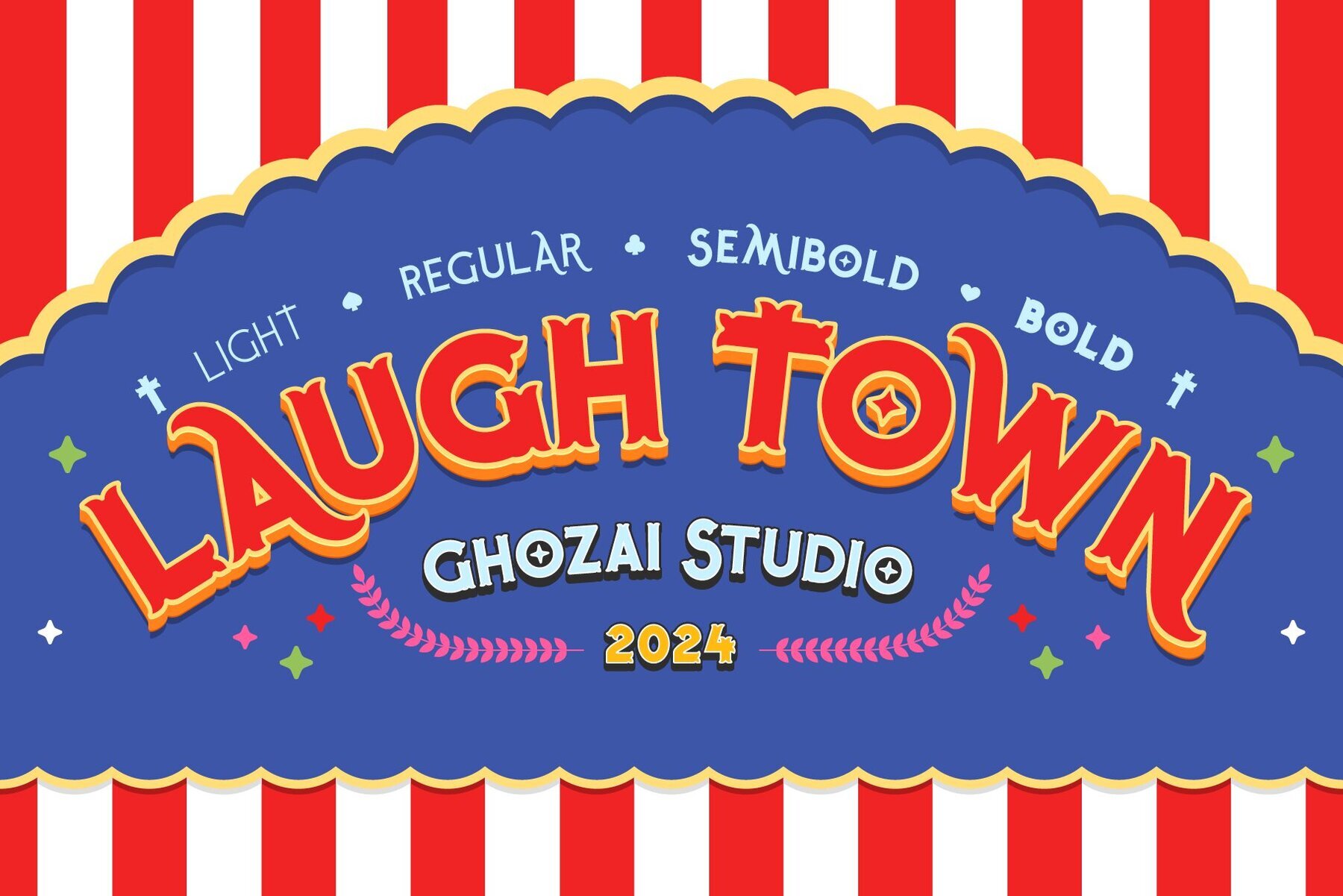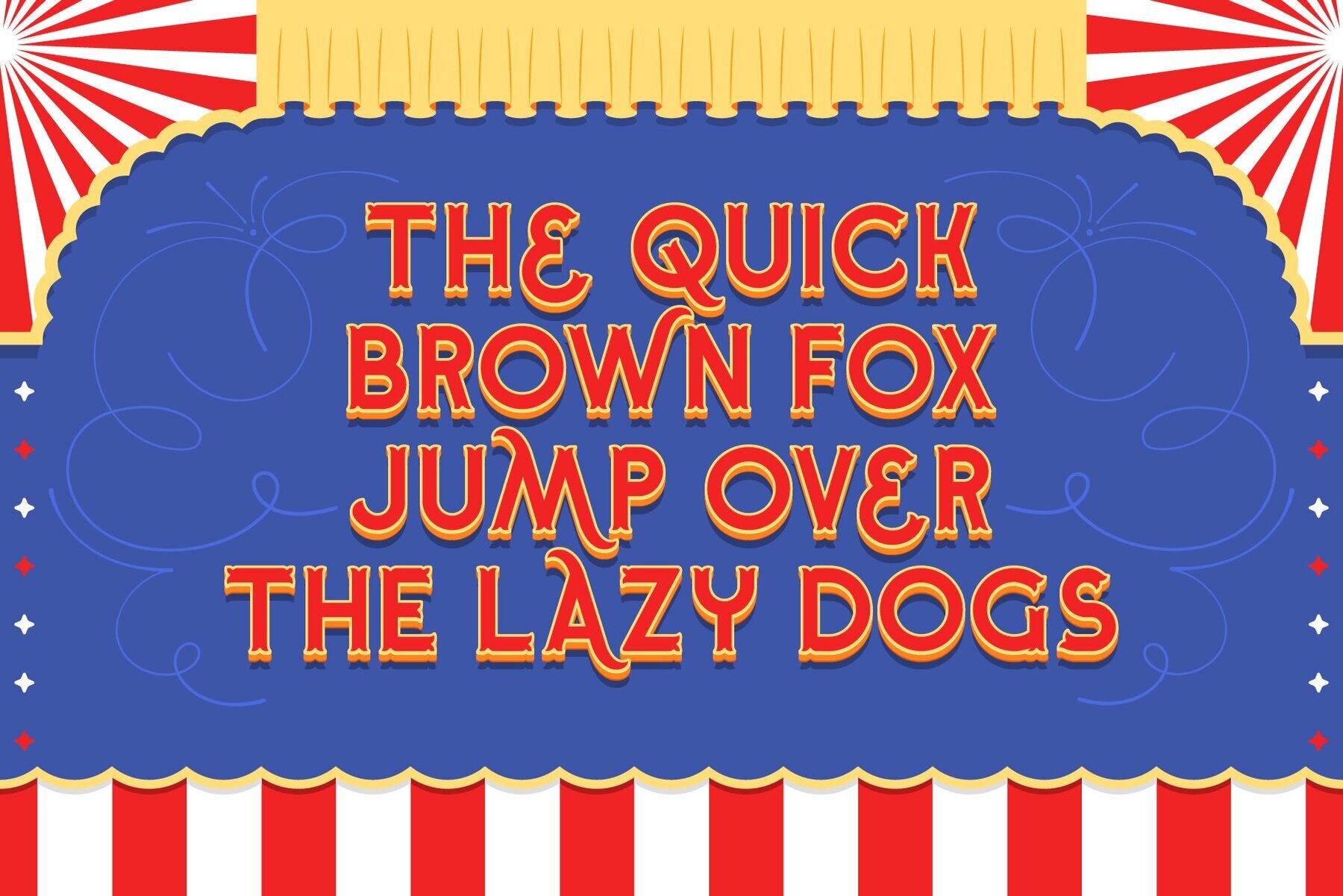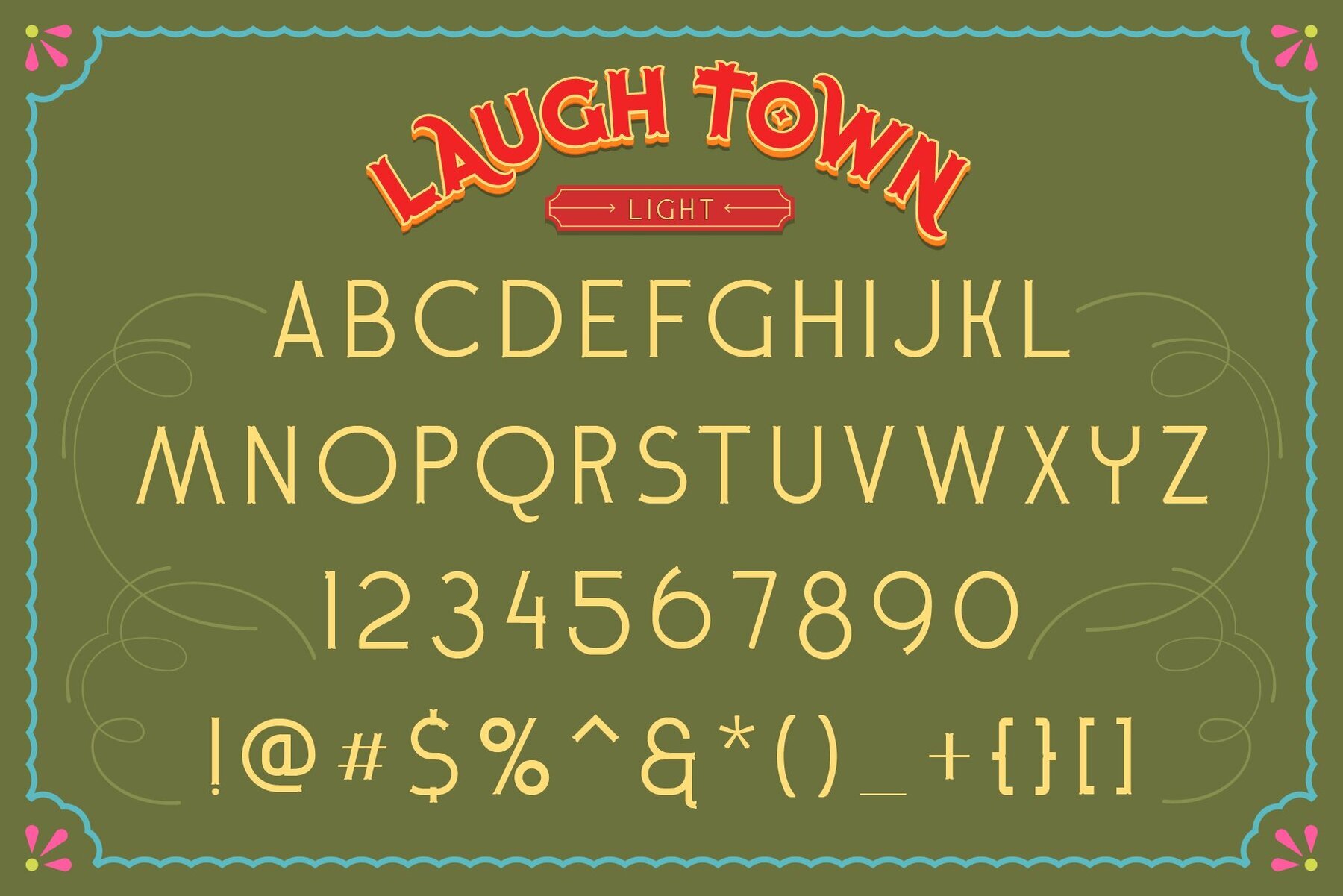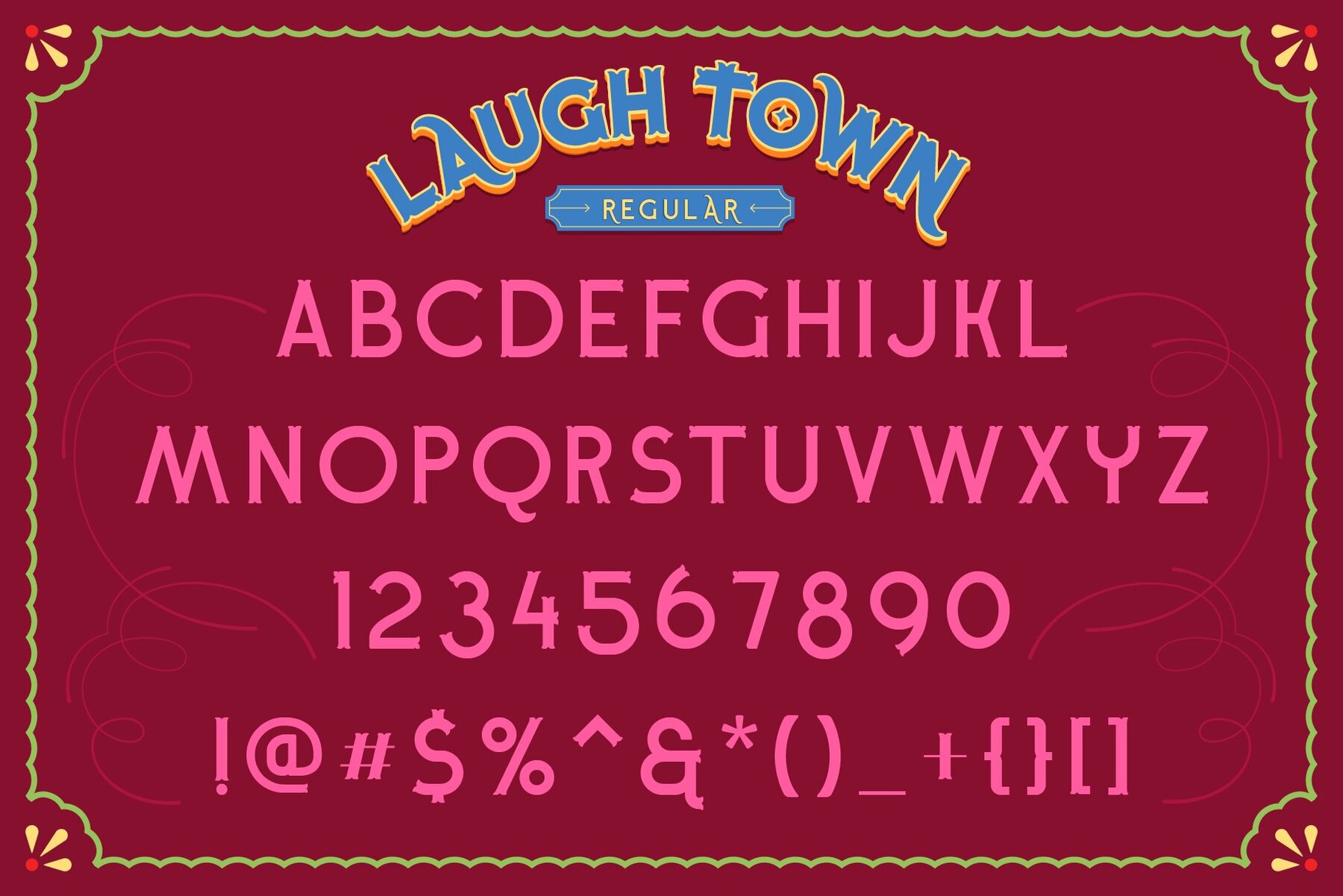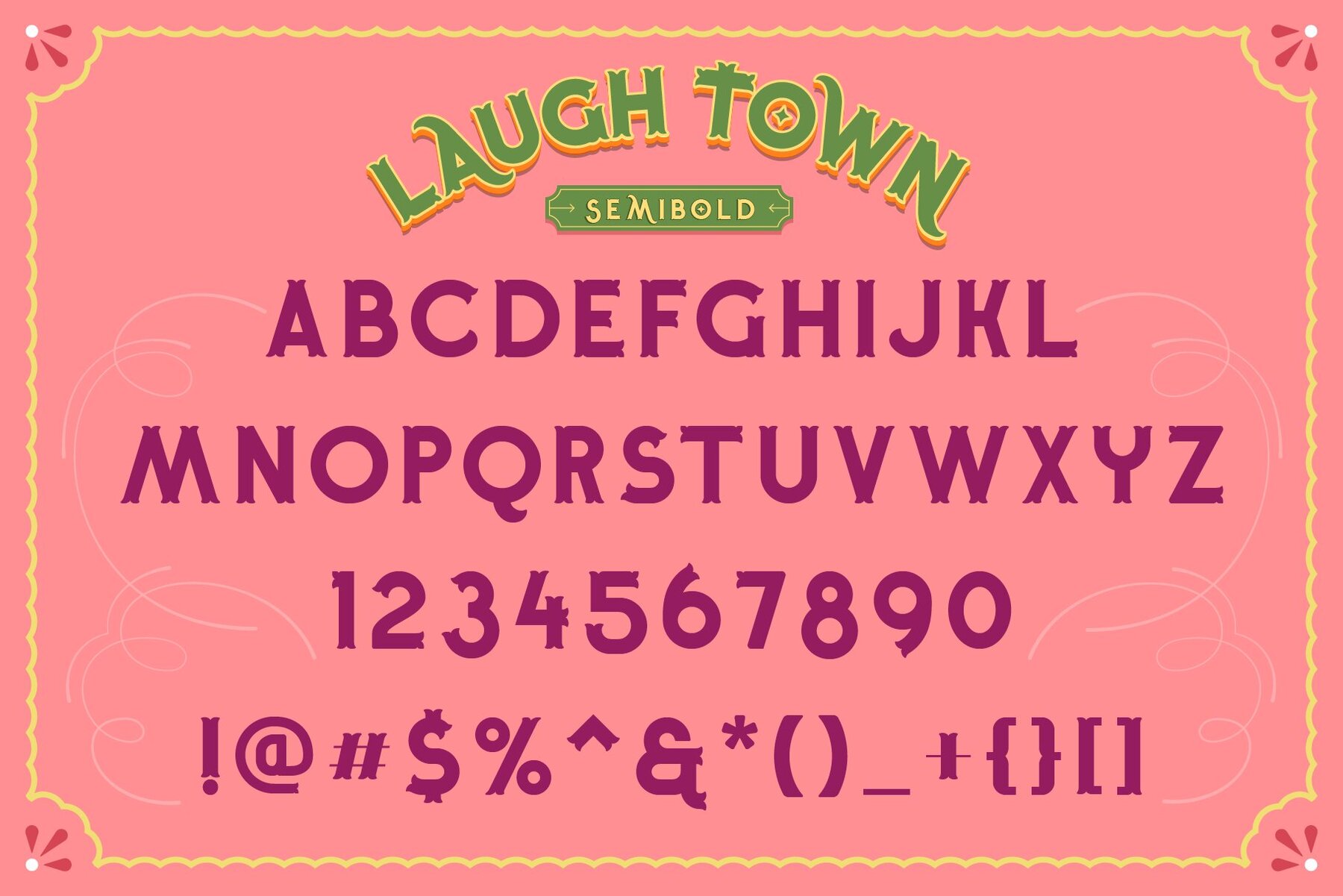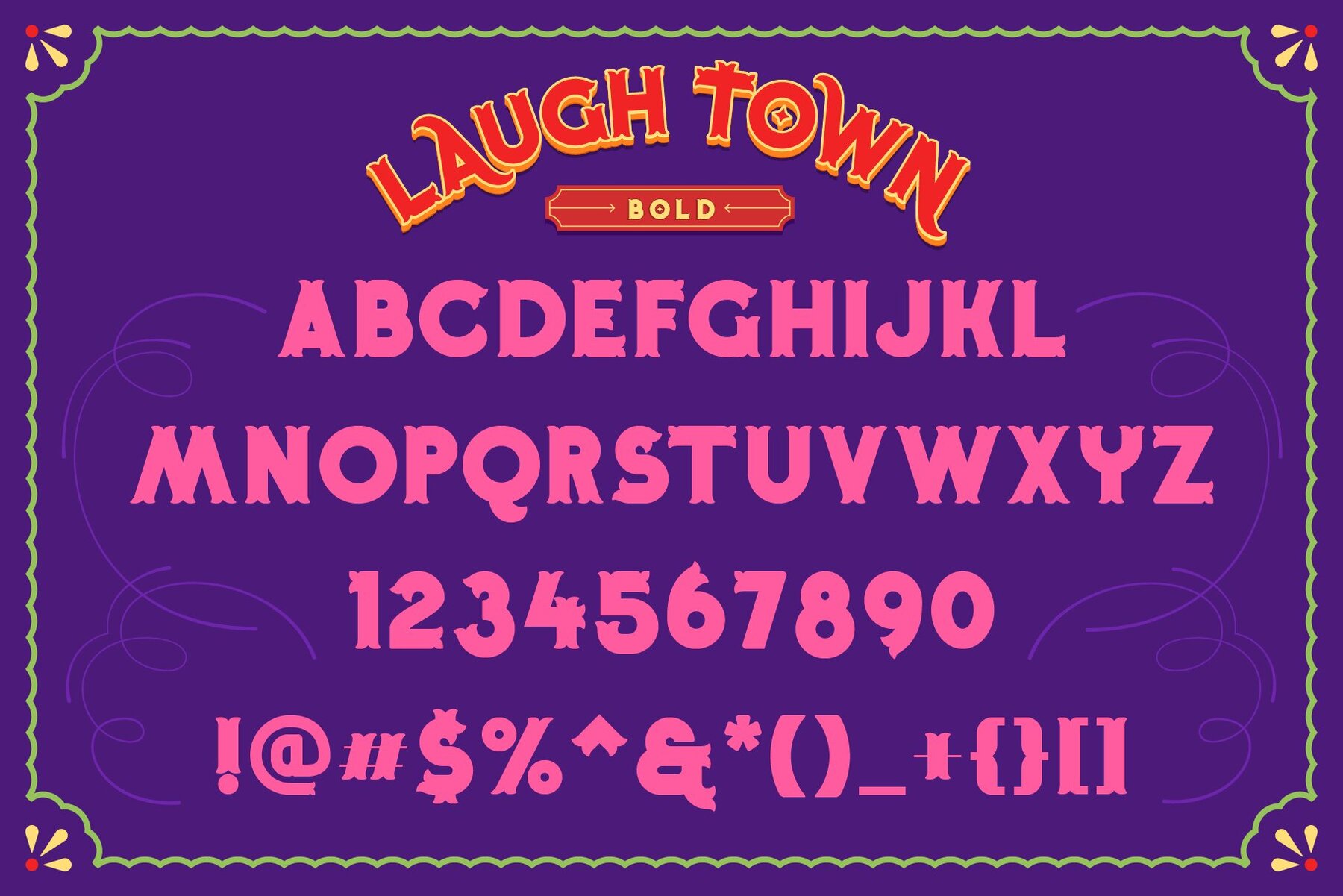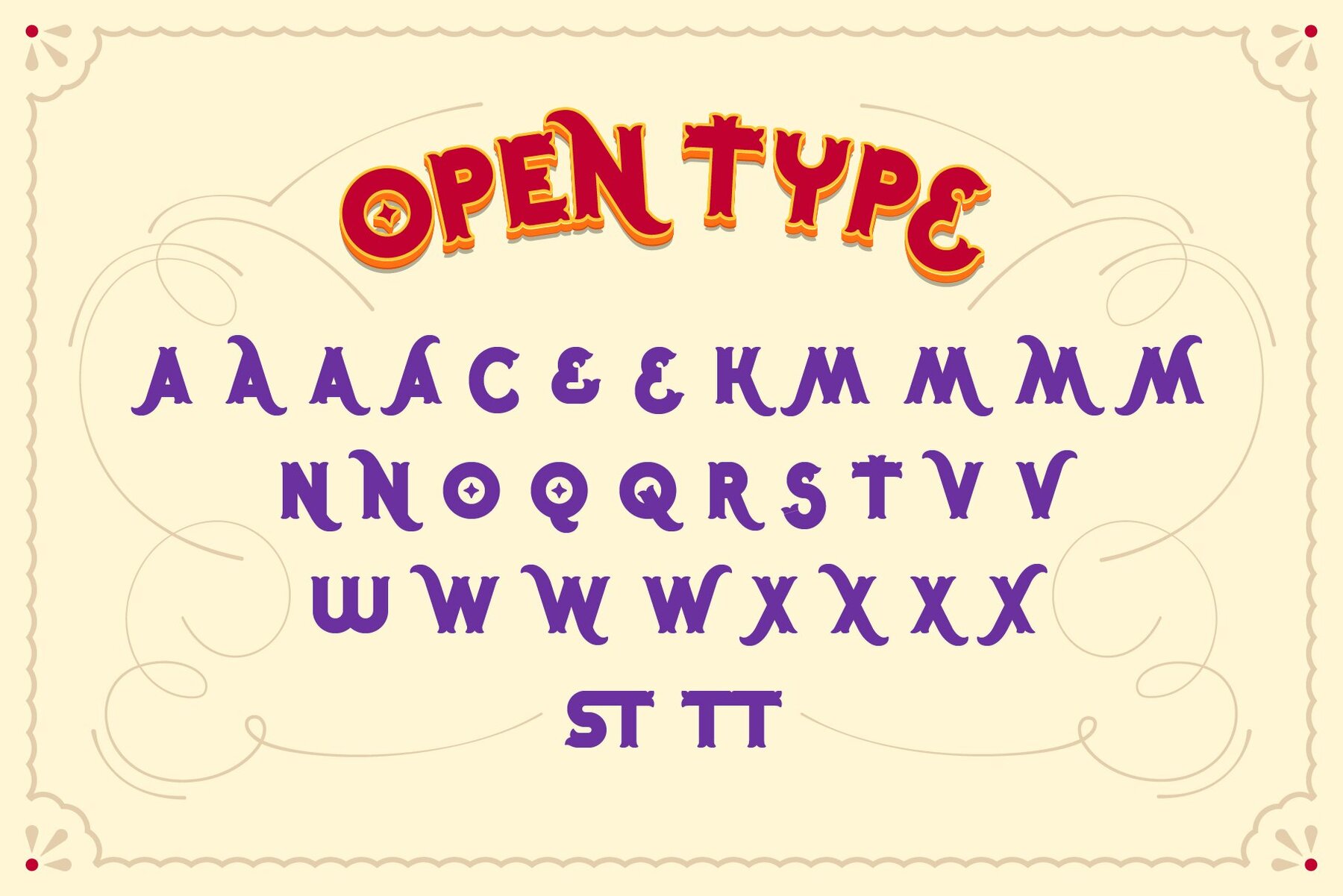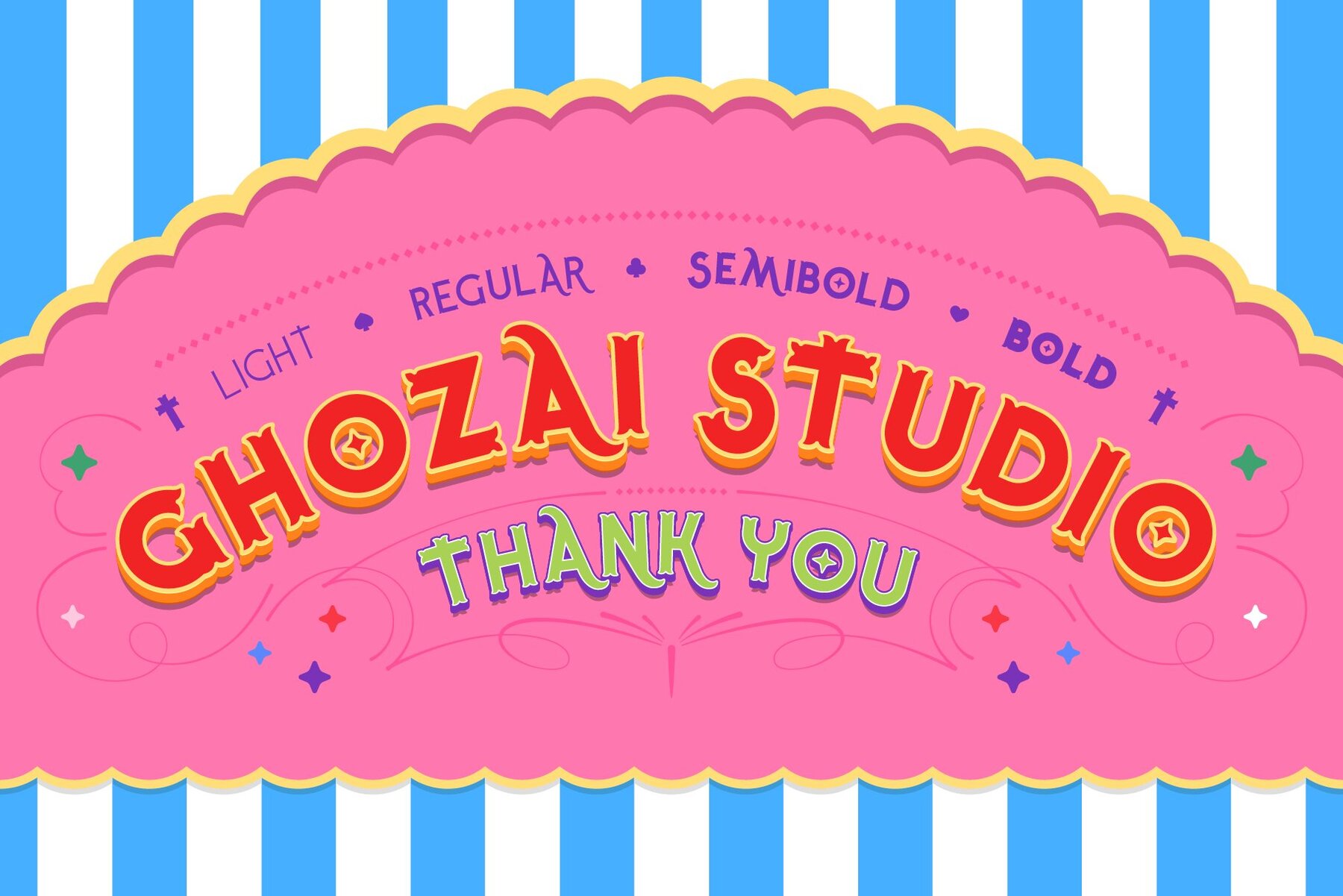
Laugh Town Font
Laugh Town is a display font inspired by a carnival or circus typeface. This font family comes in a wide range of styles from light to bold. It includes various OpenType features and supports multiple languages, making it versatile for diverse design needs. Laugh Town is ideal for festivals, carnival themes, headlines, titles, signage, branding, and other designs that require a strong impact.Laugh Town: Display Font Inspired by Carnival Charm